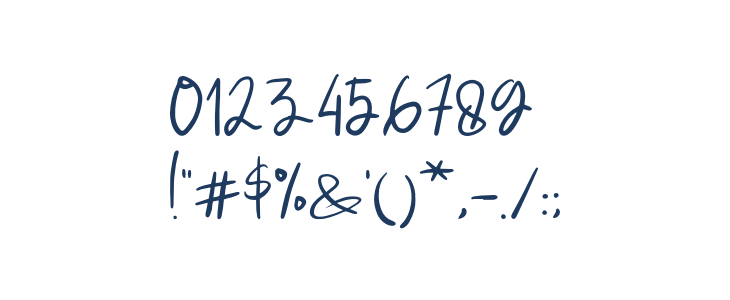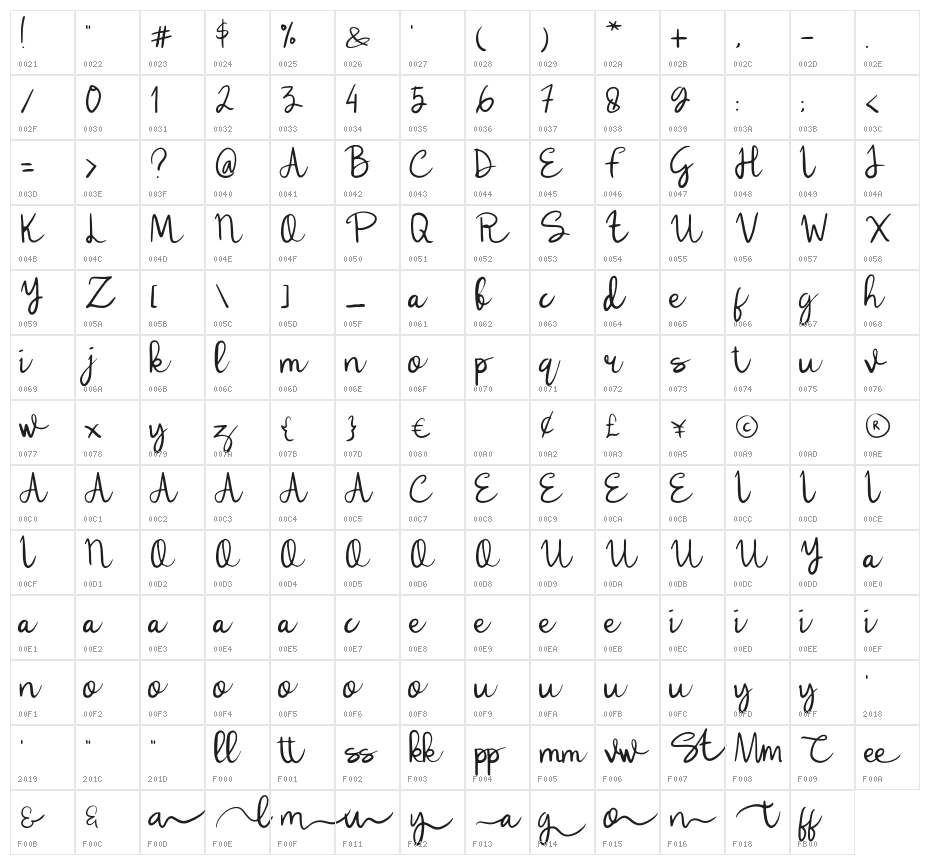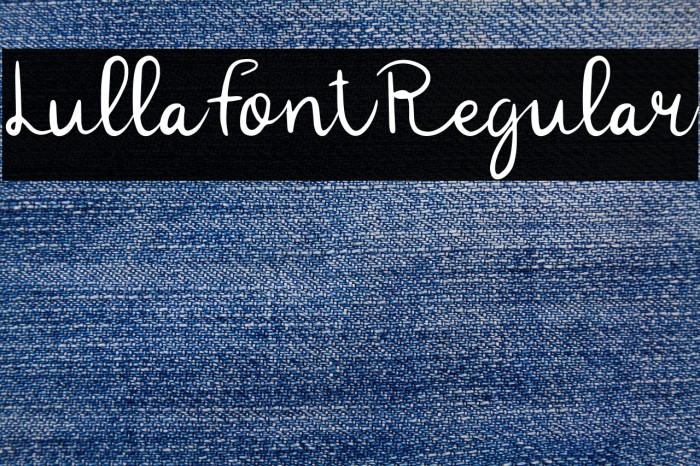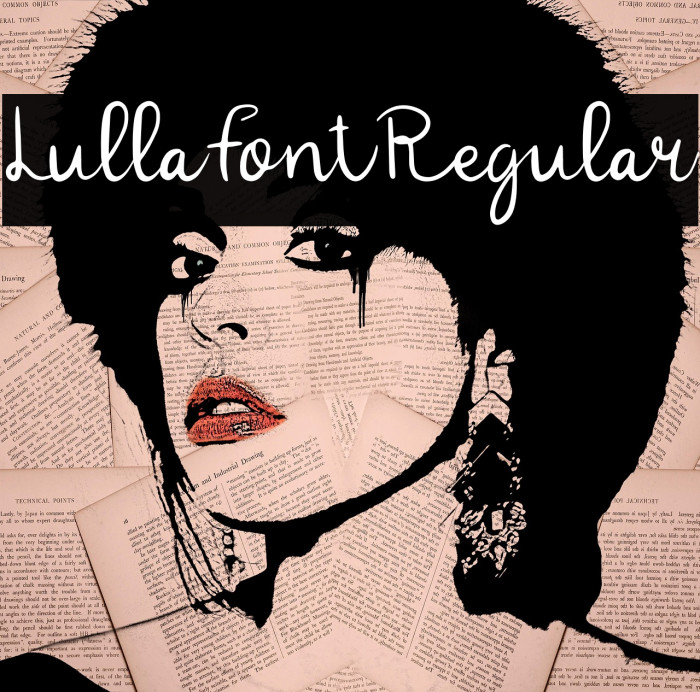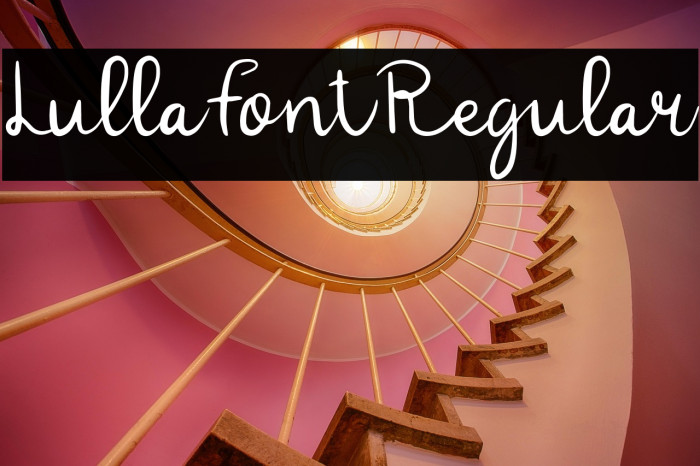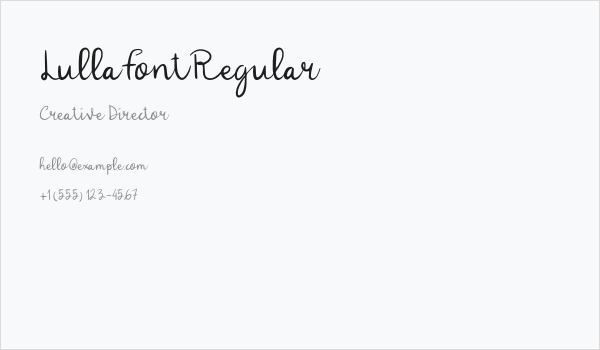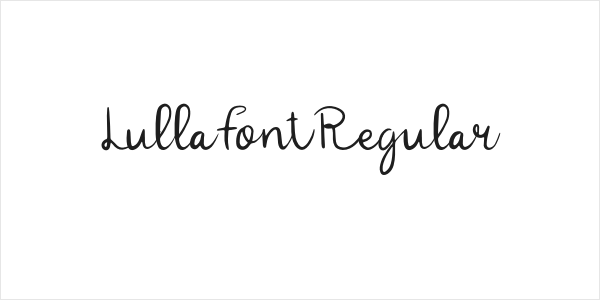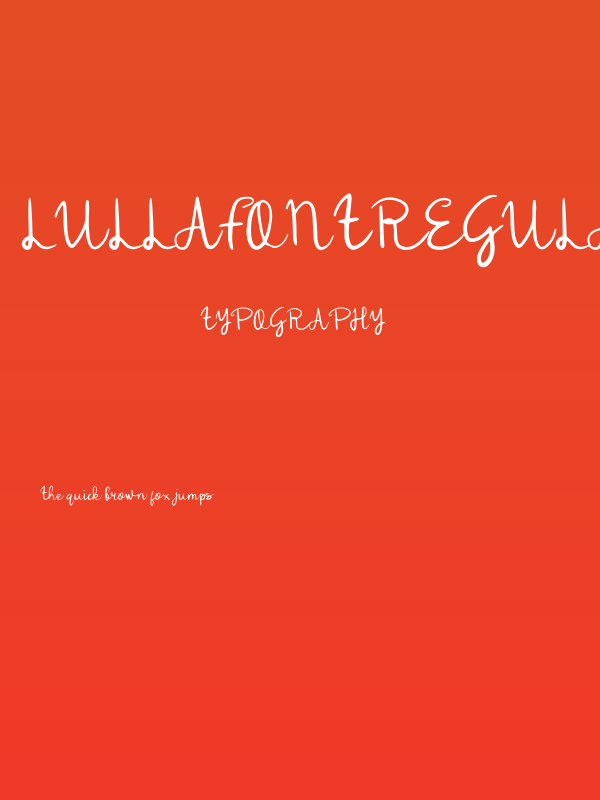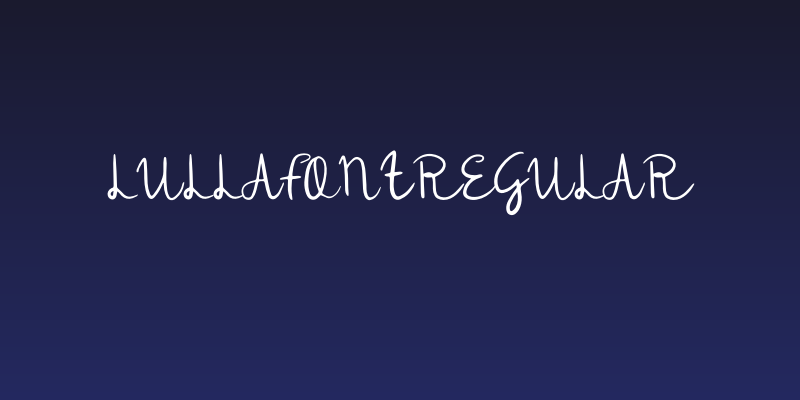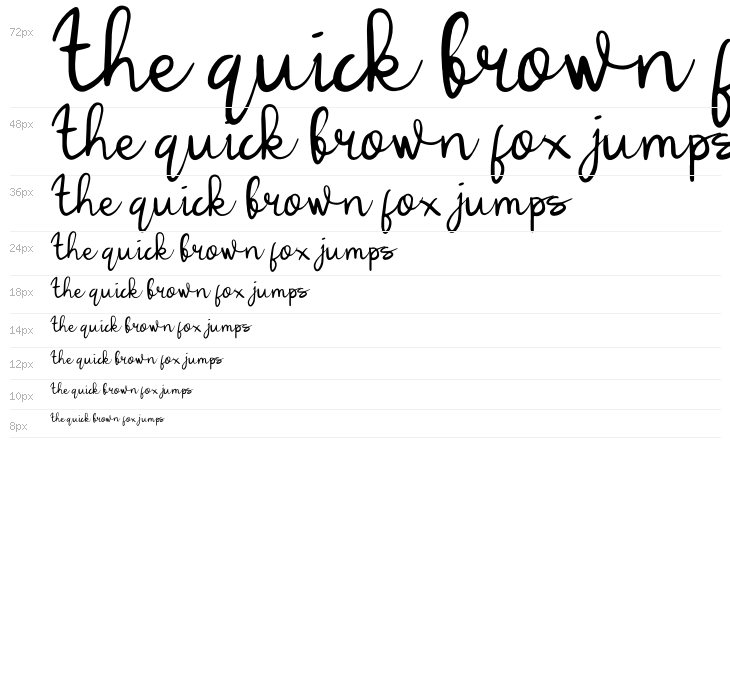
LullaFontRegular Font
| Stile generale | Casual, Playful |
| Caso d'uso | Headlines, Logos, Invitations |
| Progetti proposti | Ideal for greeting cards, invitations, personal branding, and creative projects that require a friendly and informal touch. |